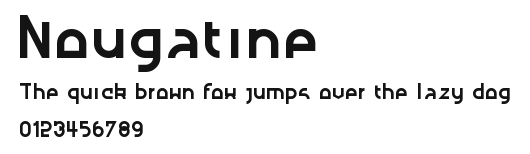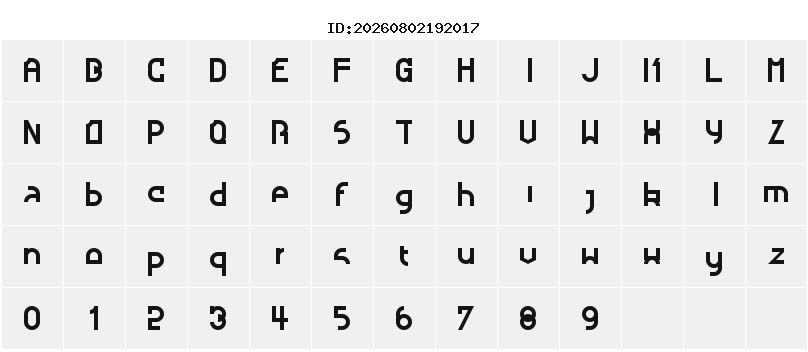
Nougatine Preview
• Font Name: Nougatine
• Font ID: FontStruct Nougatine
• Full Font Name: Nougatine Regular
• PostScript Name: Nougatine
• Designer: thedementor
• Description: “Nougatine” was built with FontStruct
About Nougatine.ttf
Nougatine.ttf is a modern, elegant sans-serif font designed for ultimate readability and visual harmony. Perfect for branding, headlines, web design, and print materials.